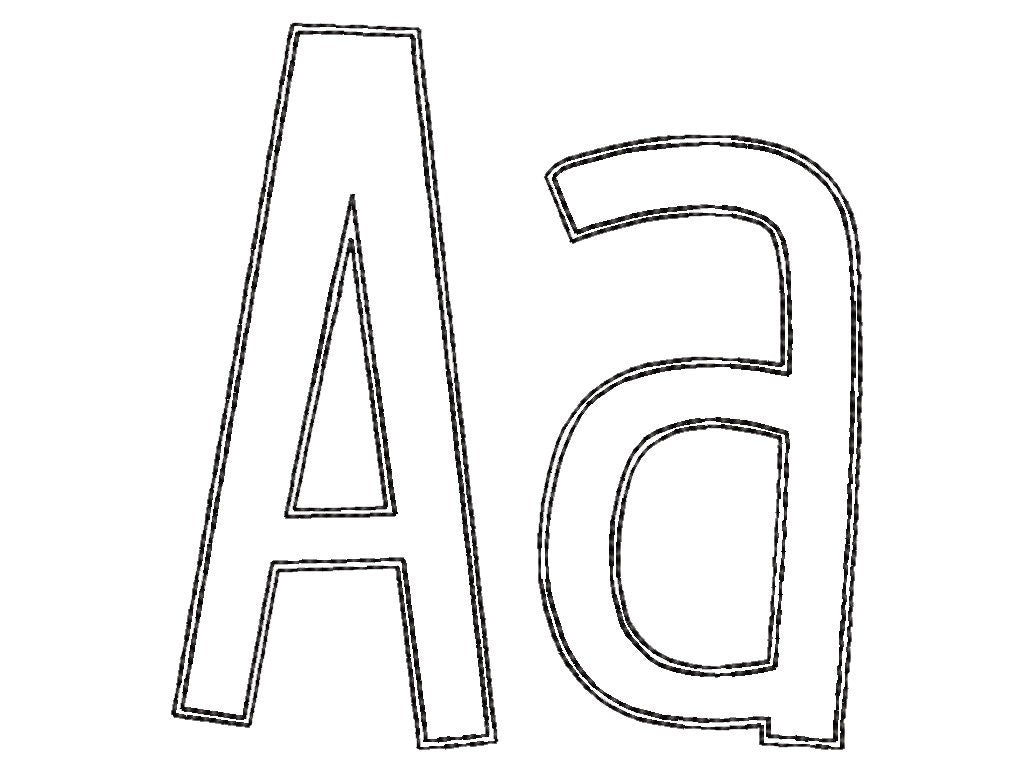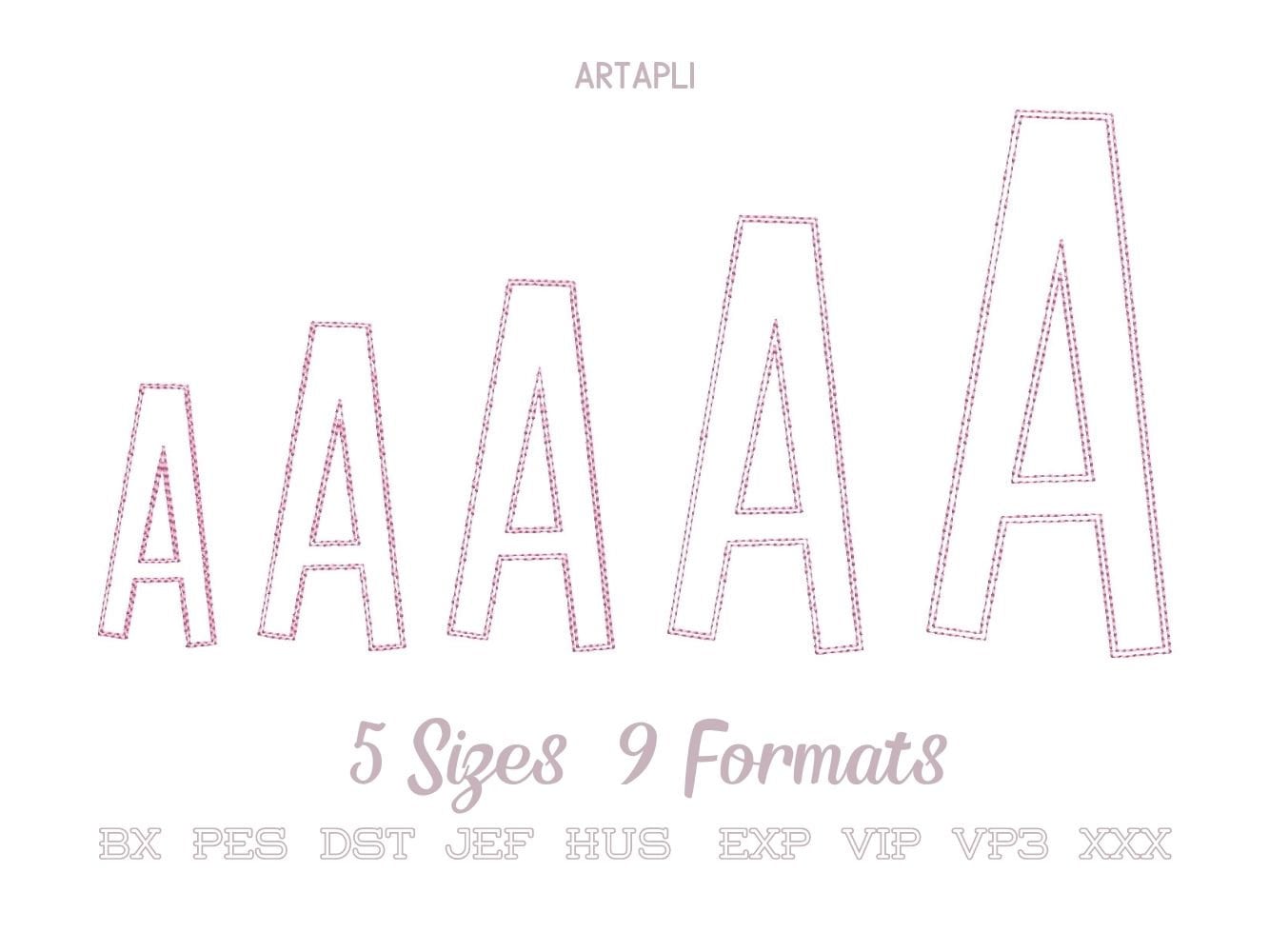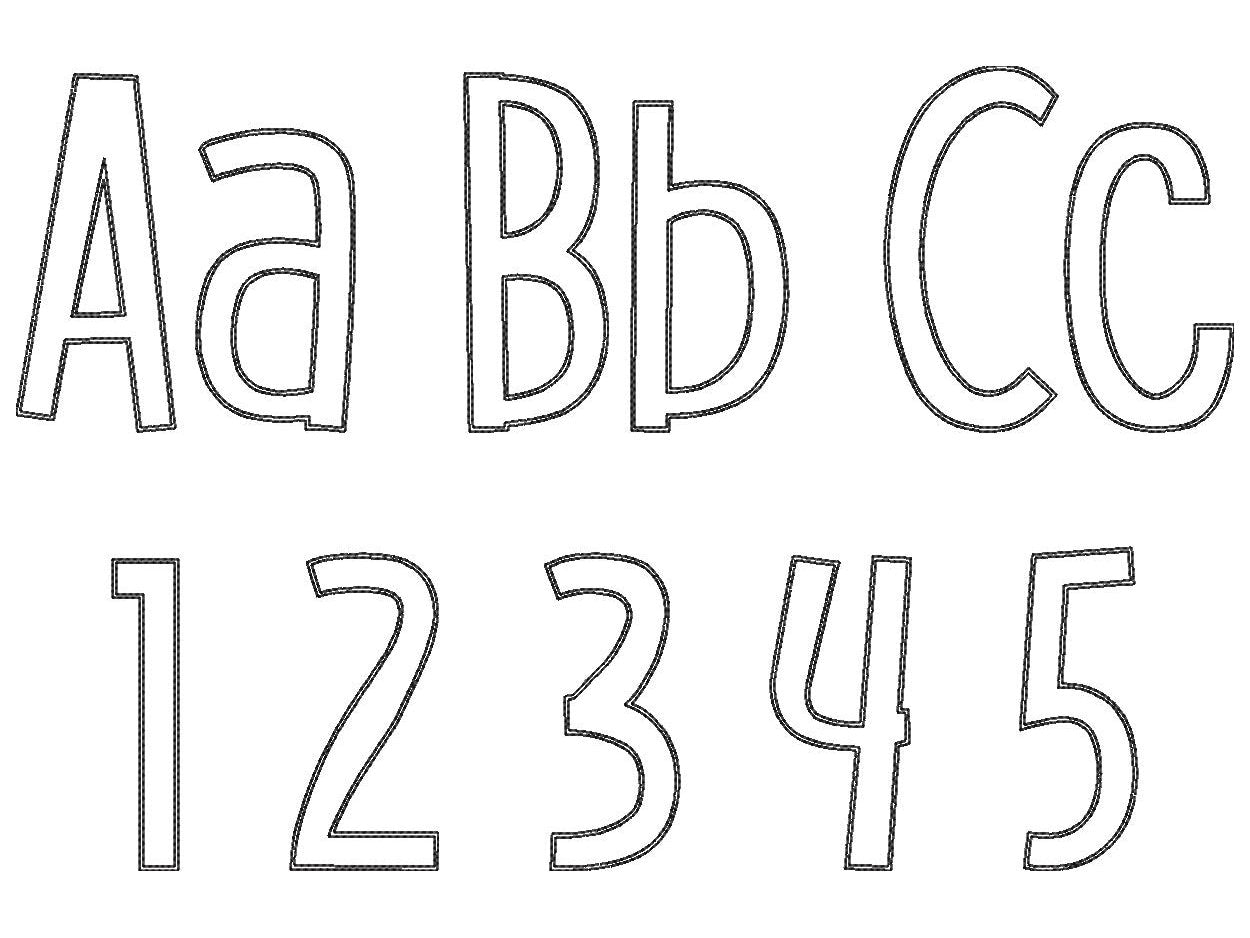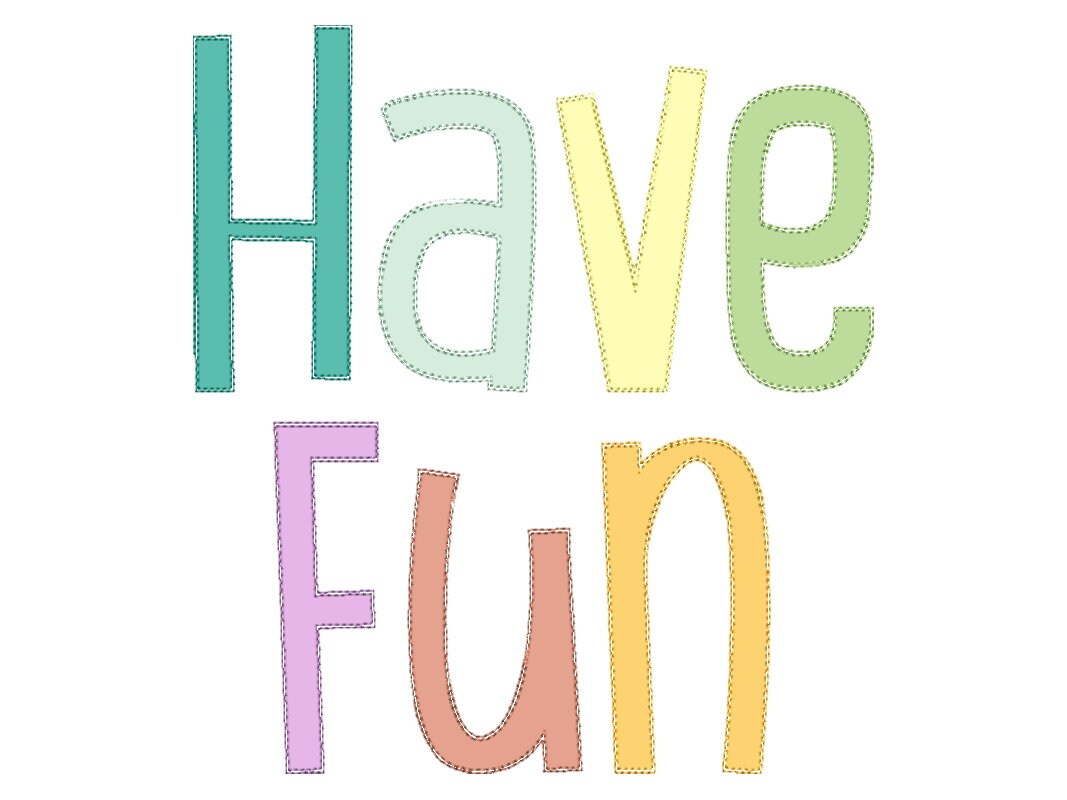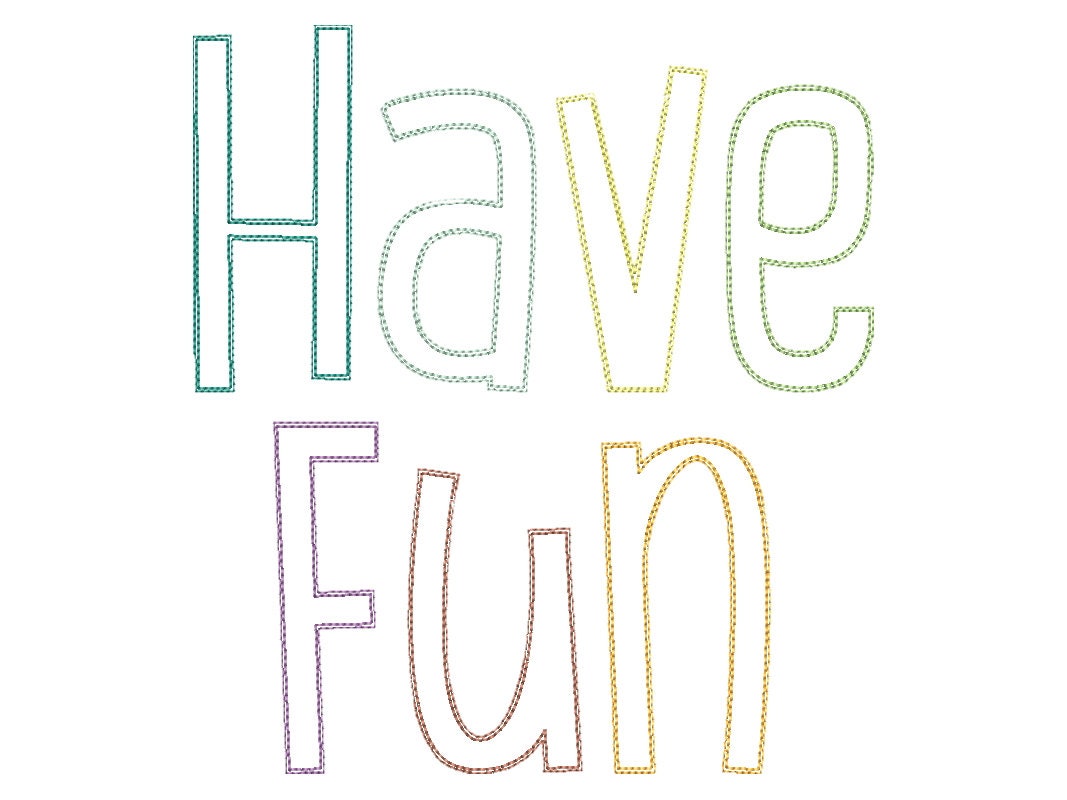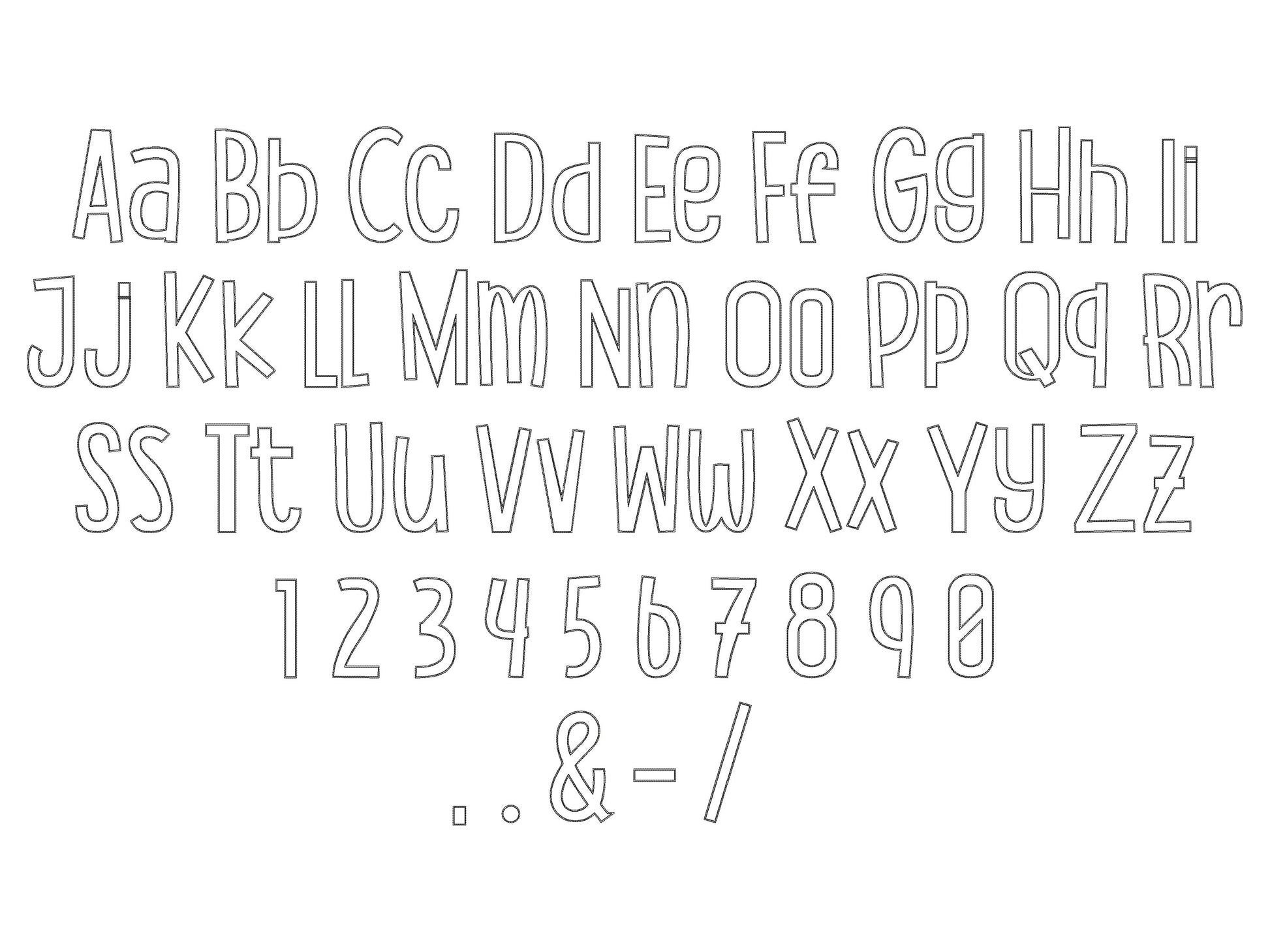
Or click to open the linkA tall, playful kids' font with a quick outline stitch that also works as raggedy edge applique. Fun for names on shirts, pillows and quilts.
The letters come in five sizes: 2.6, 3.3, 3.7, 4.4 and 5.5 inches. A quick outline stitch lets the fabric show through; add fabric and trim for a raggedy edge applique. Includes uppercase and lowercase letters, numbers 0 to 9 and the signs & . , - /
Stitch the placement line, place a piece of appliqué fabric over it, then stitch the tack-down line. Trim the excess fabric close to the seam, and finish with the cover stitches.